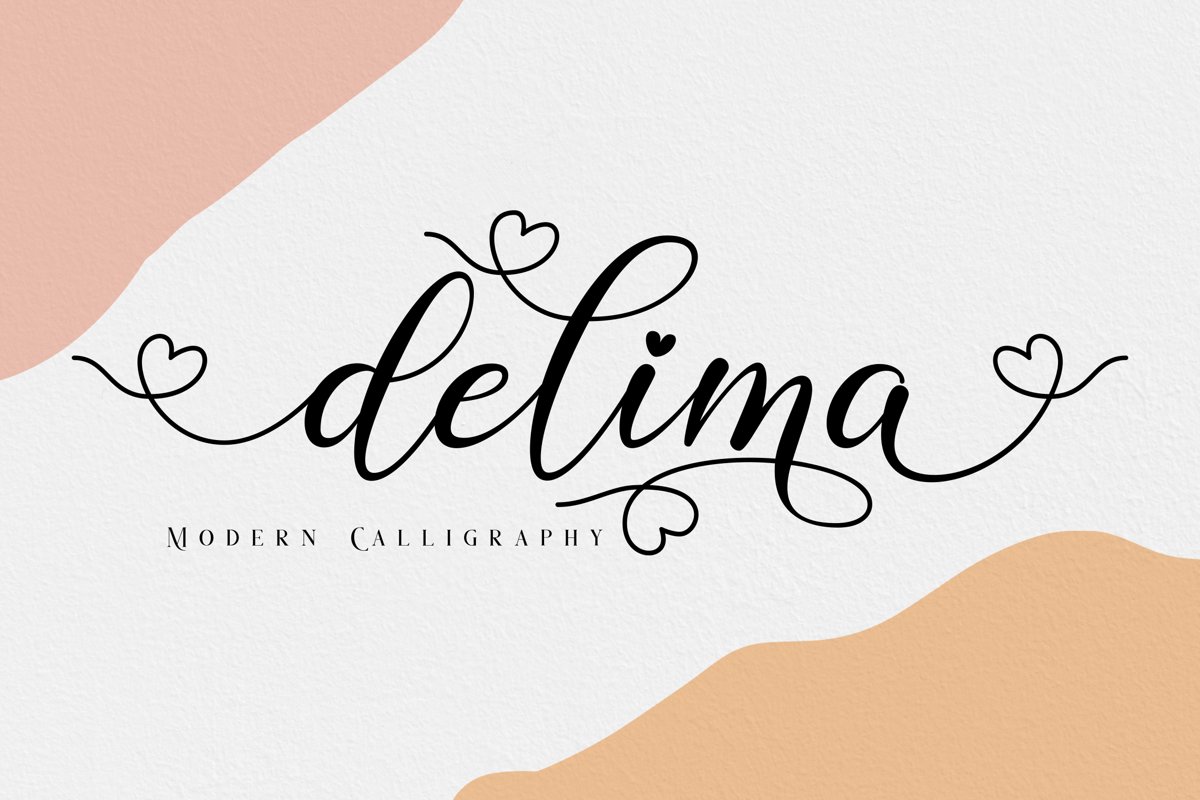
Delima // Modern Calligraphy
Delima
Introducing our newest product Delima.
Delima is a classy,modern and clean calligraphy font.
Delima is suitable for all your design project needs such as: logo design, branding, covers, posters, magazines, wedding invitations, greeting cards, quotes and more.
Titling, swash, Stylistic Alternate, Stylistic Alternate Set 01.
Multilingual support - spread your message globally AÀÁÂÃÄÅCÇDÐEÈÉÌÍÎÏIÌÍÎÏNÑOØÒÓÔÕÖUÙÜÚÛWYÝŸÆßÞþ Encoded PUA Characters.